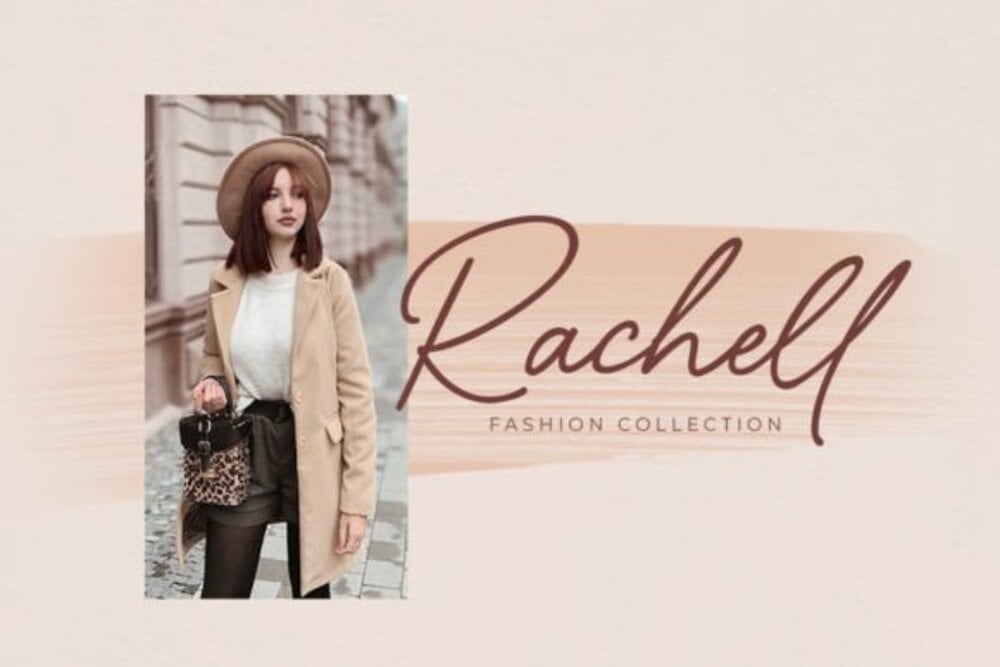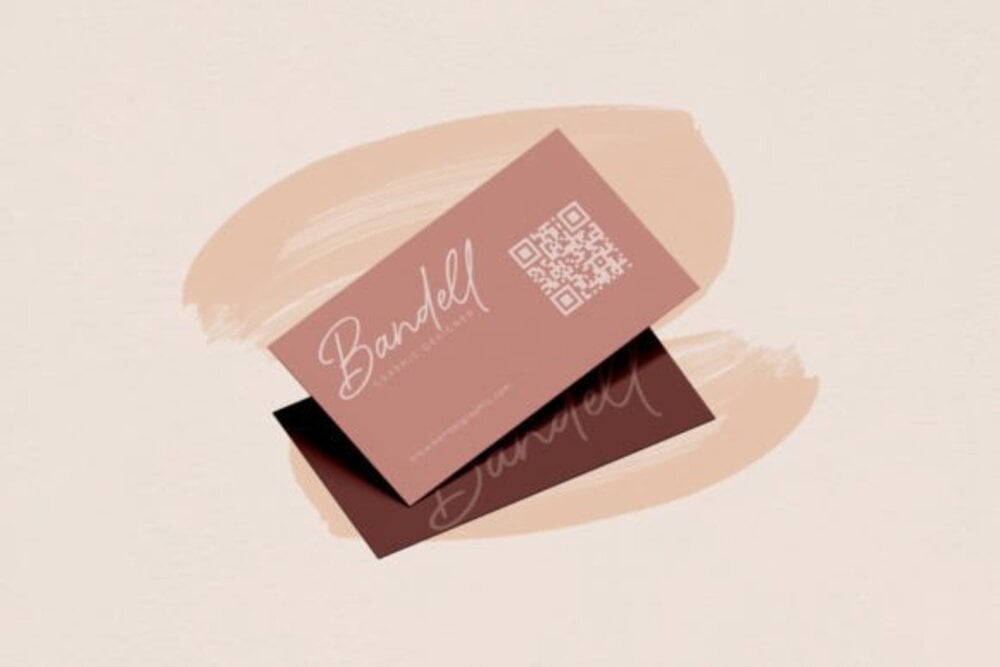
Sunday Gallery font
Sunday Gallery is a sophisticated and elegant script font with a touch of modern flair. Its flowing curves and delicate strokes create a sense of refined beauty, making it perfect for wedding invitations, branding, and editorial design. Sunday Gallery adds a touch of class and sophistication to any project, while maintaining a warm and approachable feel. It’s versatile enough for both formal and casual designs.